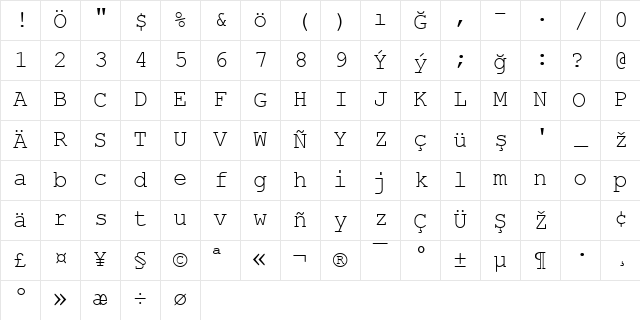
X Turkmen Courier New Regular
Design Context for X Turkmen Courier New
X Turkmen Courier New uses fixed-width spacing throughout, giving it the structured, systematic character associated with coding environments and technical documentation.
Pro Tip: Use X Turkmen Courier New with slightly increased line-height for extended reading - fixed-width spacing can feel dense in longer passages without extra breathing room.